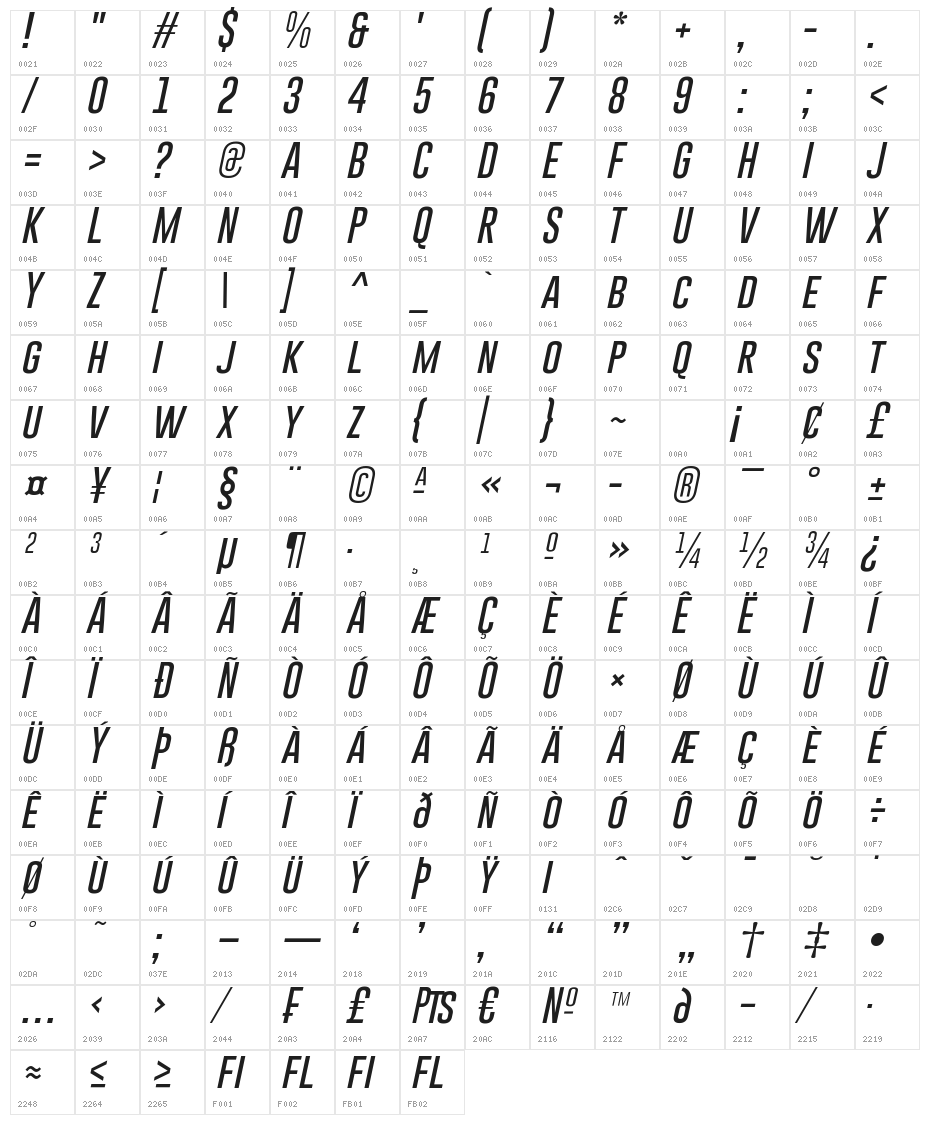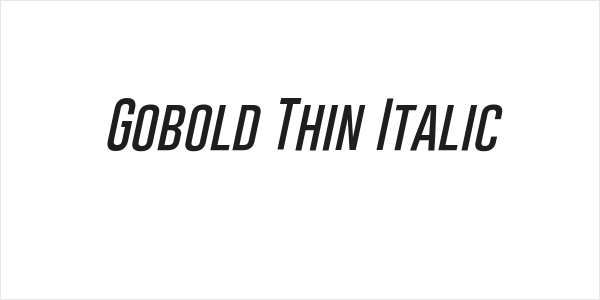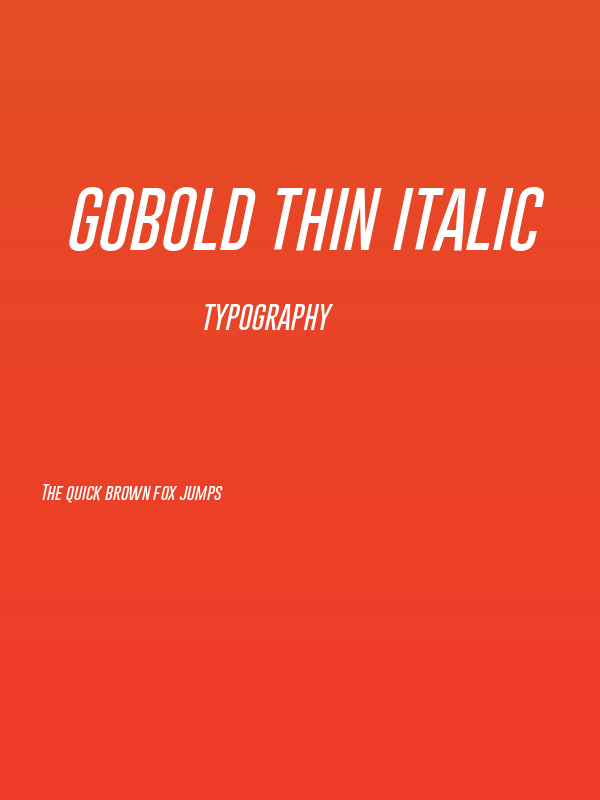
Gobold Thin Italic Font
Gobold Thin Italic Description
This font features a sleek, modern design with a thin, italicized style. The characters are elongated and slightly condensed, giving a sense of speed and dynamism. The uppercase and lowercase letters maintain a consistent height, while the numerals are designed to align perfectly with the letterforms. The special characters are crafted with the same attention to detail, ensuring a cohesive look across all glyphs. The font's clean lines and minimalistic approach make it versatile for various design applications.